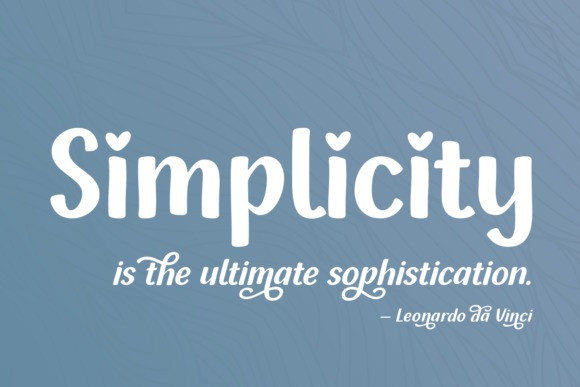
Heyla Font
Heyla Display Font is a lovely script font featuring charming, playful characters that seem to dance along the baseline. This font is PUA encoded which means you can access all of the glyphs and swashes with ease!